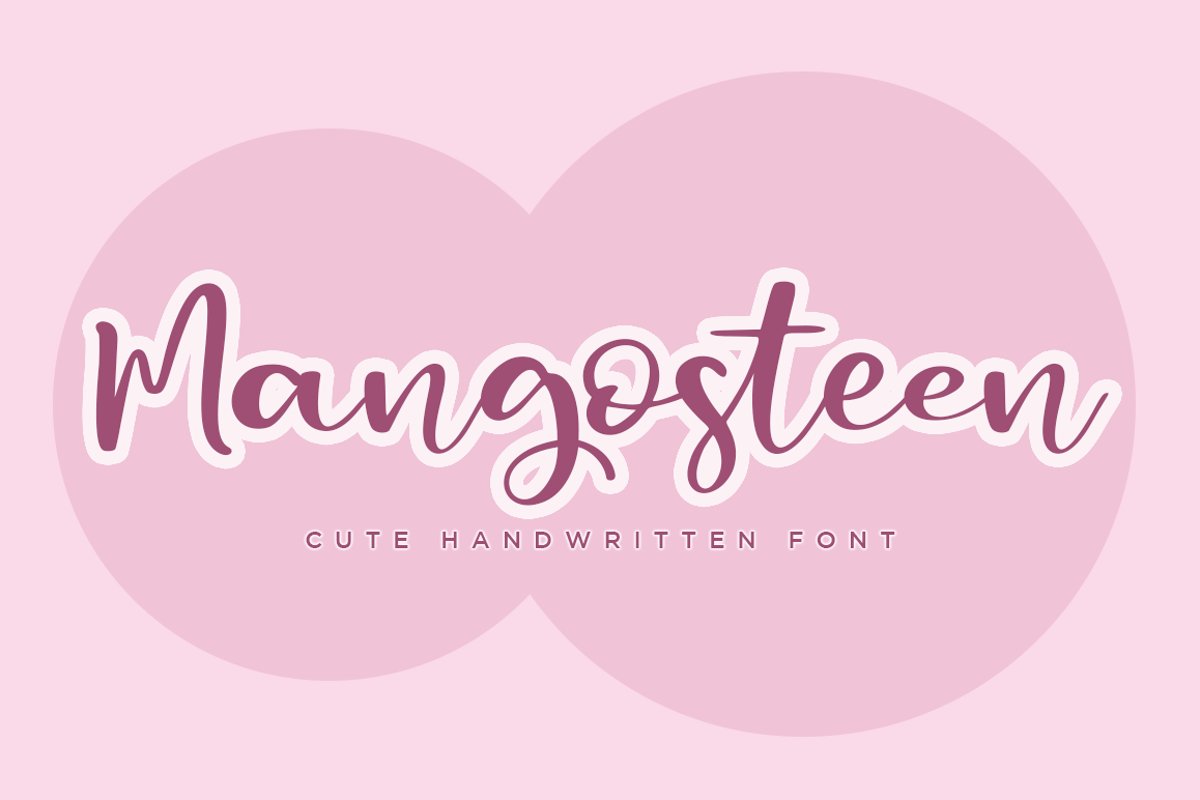
Mangosteen a Cute Handwritten Script Font
Mangosteen
Mangosteen a Cute Handwritten Font
Introducing the cute handwritten "Mangosteen" Script Font!
If you are needing a touch of casual modern calligraphy for your designs, this font was created for you!